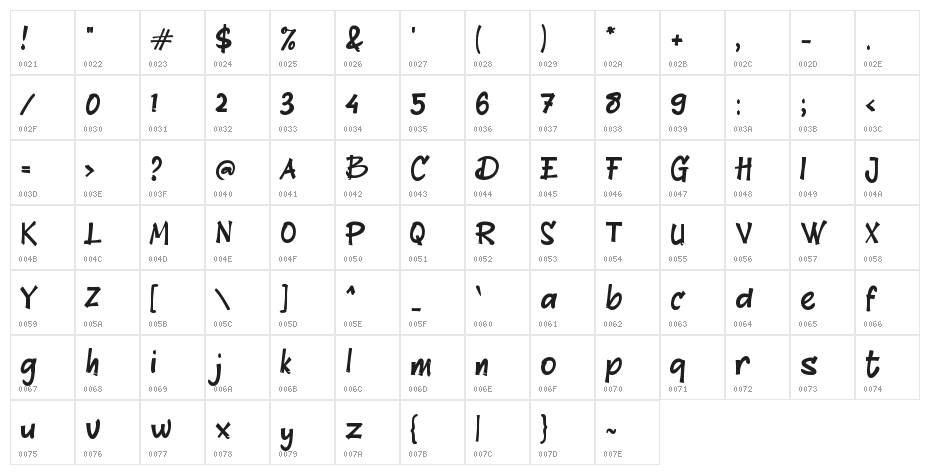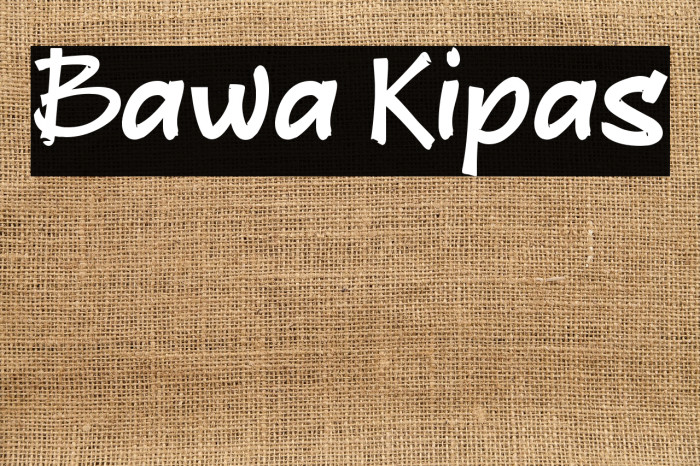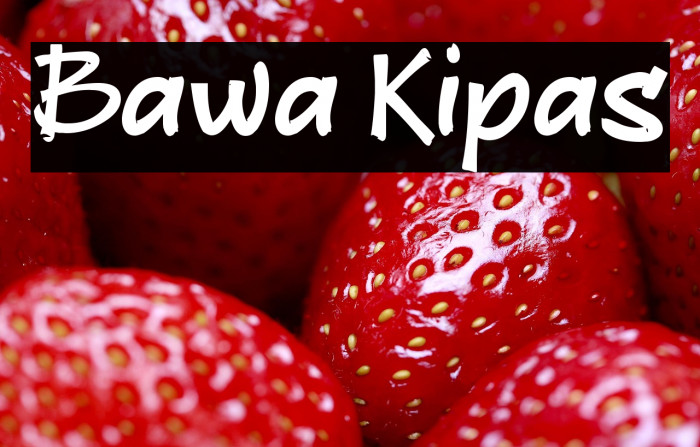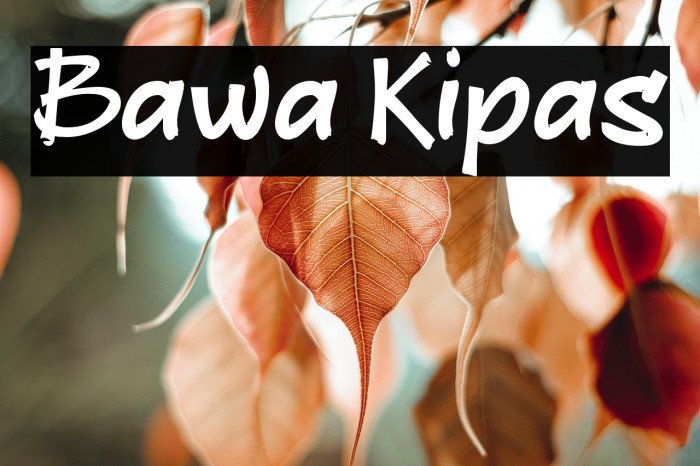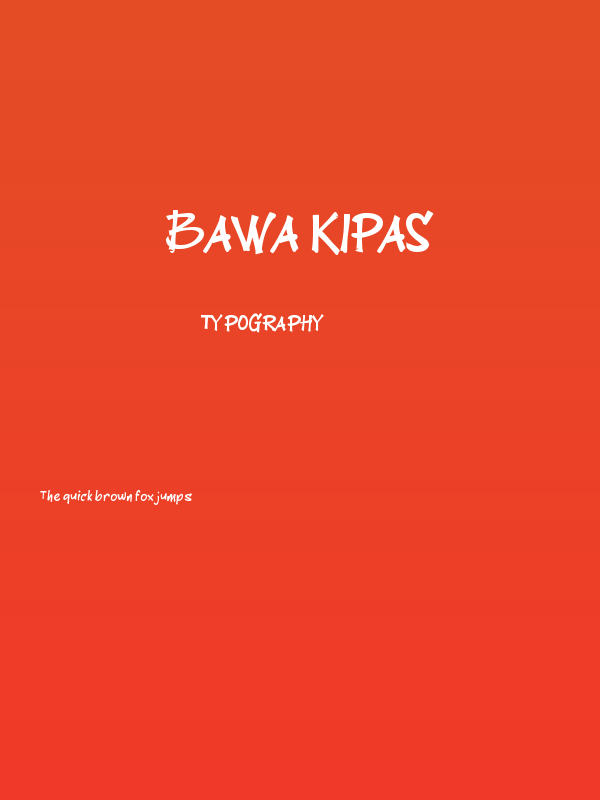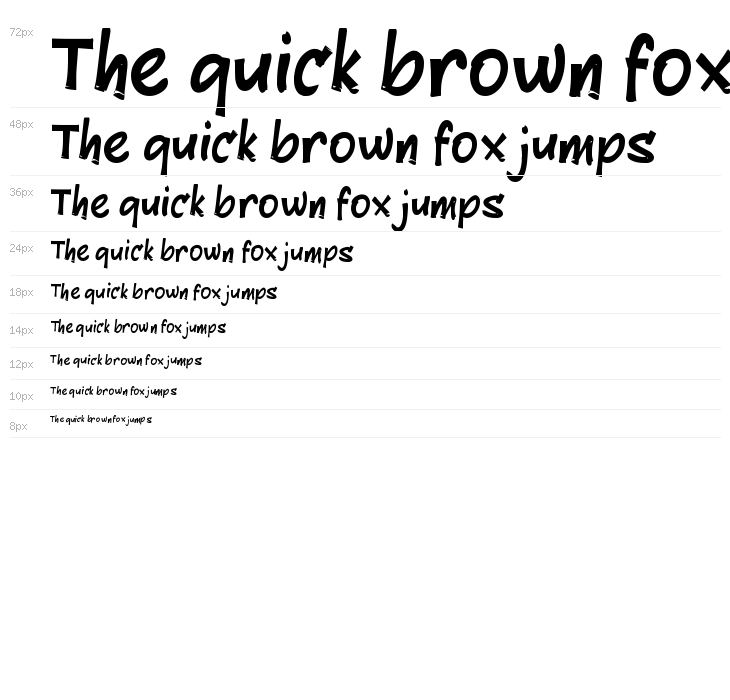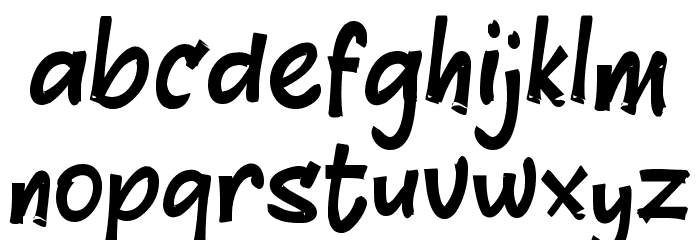
Bawa Kipas Font
Bawa Kipas Description
This font features a bold, energetic style with a hand-drawn appearance. The uppercase letters are dynamic and slightly irregular, giving a sense of movement and spontaneity. The lowercase letters maintain this lively character, with some letters having unique, playful curves. The numbers are bold and consistent with the overall style, while the special characters add a touch of whimsy. The strokes are thick and have a medium contrast, contributing to the font's bold presence. This font is ideal for projects that require a personal, informal touch, such as posters, invitations, or branding that aims to convey creativity and fun.
| Proposed Projects | Ideal for posters, invitations, creative branding, and any project needing a playful, informal touch. |